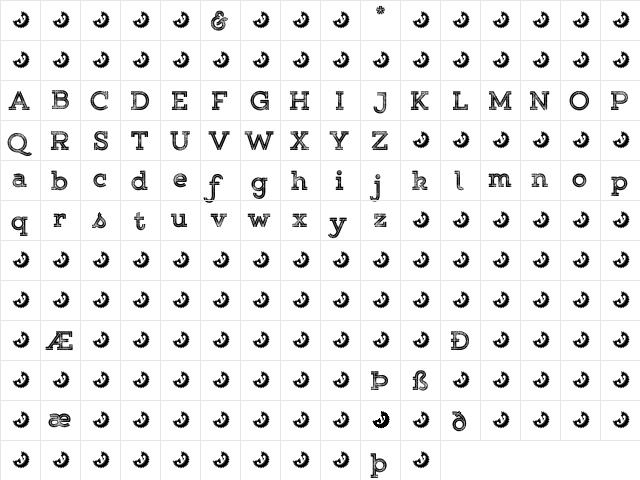
Gist Rough Upr Exbold Two Demo Regular
Design Context for Gist Rough Upr Exbold Two Demo Typeface
Gist Rough Upr Exbold Two Demo trades polish for personality, using distressed and eroded forms to bring grit and attitude to creative work.
Suited to punk-influenced zines, underground music branding, streetwear, and raw, anti-corporate design.
Pro Tip: Pair Gist Rough Upr Exbold Two Demo with intentionally raw or lo-fi design elements. Fighting against it with overly polished surroundings will undermine its personality.